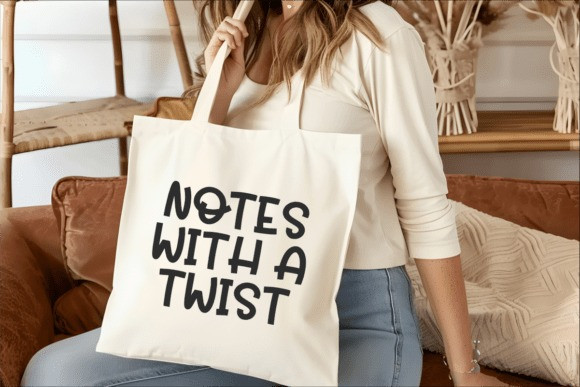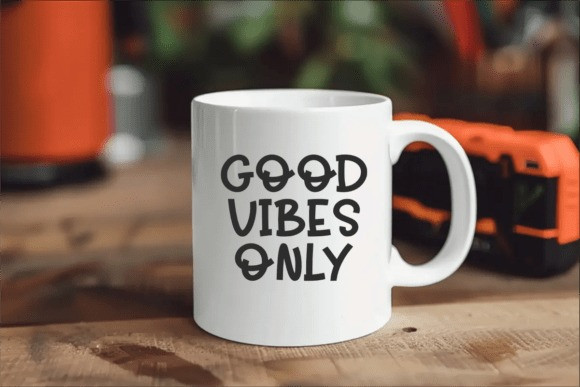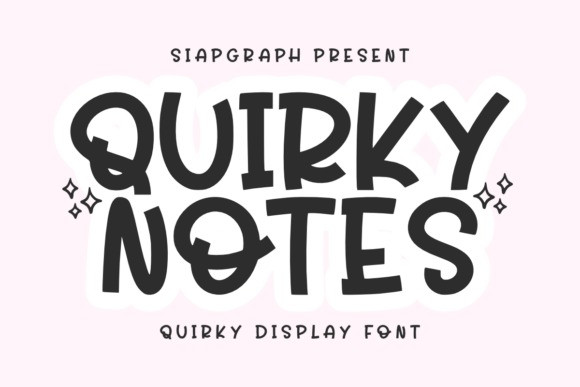
Quirky Notes Font
Quirky Notes is a distinctive and playful display font that brings a touch of hand-drawn charm and unique character to your designs. Its slightly irregular letterforms and whimsical curves give it an informal, approachable, and friendly feel, making it stand out from more conventional typefaces. The added starburst elements further enhance its quirky and fun personality. This font is perfect for adding a personal and creative touch to a wide range of projects.
Imagine Quirky Notes livening up fun stickers, engaging planner layouts, casual t-shirt designs, unique product labels, informal invitations, personalized tumblers, and countless other creative crafts. Its distinctively quirky and approachable style makes it particularly appealing for end-users who enjoy crafting with Cricut, sublimation, and other DIY methods, adding a handwritten-style flair to their creations. Quirky Notes’ unique personality will ensure your designs feel personal, friendly, and full of character, making them truly memorable